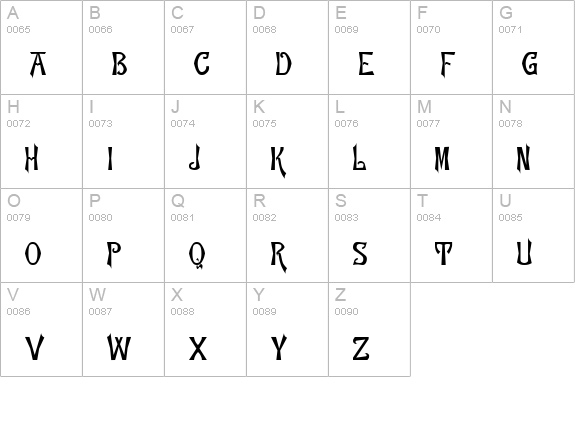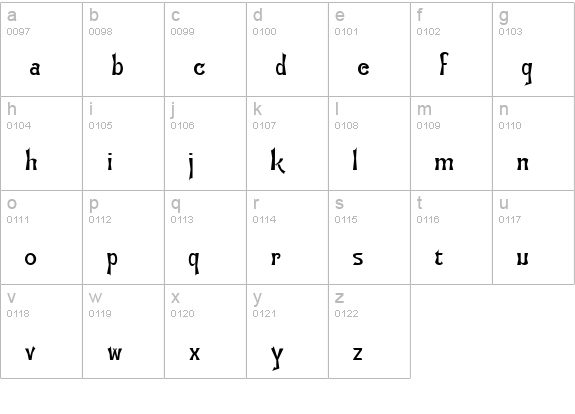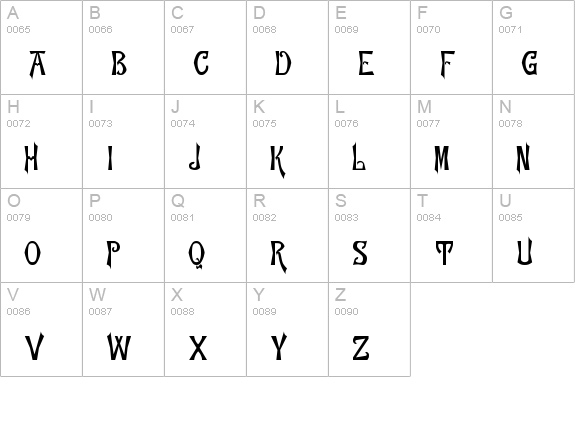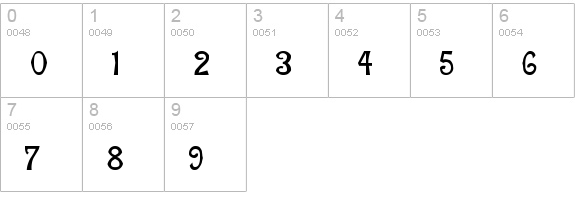
Telepath font is a modern and stylish typeface that exudes sophistication and elegance. Its sleek lines and contemporary design make it perfect for a wide range of projects, from branding to editorial design. The font features a unique and eye-catching character set that will make your text stand out. What's even better is that Telepath font is available for free download at FontsMarket.com. This means that you can easily access this beautiful font without any cost. Whether you're a designer looking for a new addition to your font library or a business owner in need of a fresh look for your brand, Telepath font is the perfect choice. Download it today and elevate your design projects to the next level.